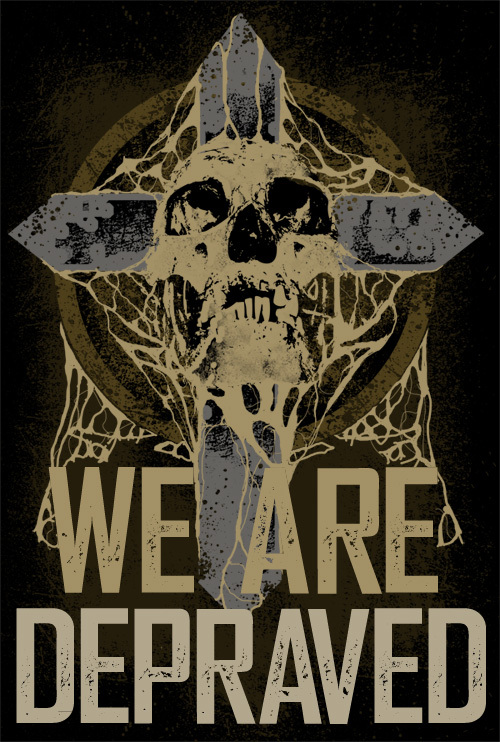
We are Depraved by Font Monger is a free eroded display font with towering, extremely tightly drawn capitals and a blunt industrial build. The strokes are dense and mostly uniform, with narrow inner spaces and squared shoulders that sharpen the compressed silhouette. Scraped patches break across the faces in irregular bands, suggesting hard use and rough screen printing rather than a neat vintage finish.
Music, extreme sports, and urban subjects suit its abrasive, poster-sized lettering, making it useful for album artwork, event posters, apparel graphics, and game promotions. Independent labels and underground entertainment brands are the clearest audience for it.
We are Depraved is a font by Font Monger , designed by Chris Vile in 2013.